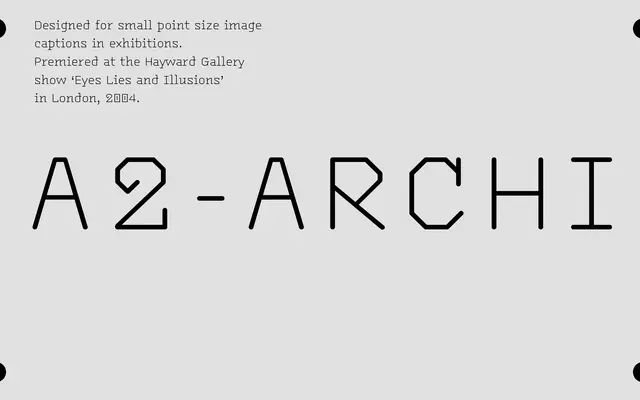
Archi specimen from A2-Type
A single-weight mono-linear text face drawn from the lettering conventions of architectural drawings, originally commissioned for a 2004 Hayward Gallery exhibition.
Designed for the 'Eyes, Lies and Illusions' exhibition at the Hayward Gallery in London, Archi takes its cue from the mechanical routing process and the uniform-stroke lettering typical of technical and architectural draughtsmanship. The result is a single Regular weight with even stroke widths throughout, lending it a clinical yet readable quality across point sizes. Its narrow application range makes it best suited to contexts where a technical or drafting aesthetic is intentional.
Archi is a mono-linear typeface, meaning all strokes share an equal weight, inspired by the mechanical letterforms found in architectural drawings and routing processes. This places it within sans-serif territory, closer to a technical or engineering grotesque than a conventional humanist or geometric model.